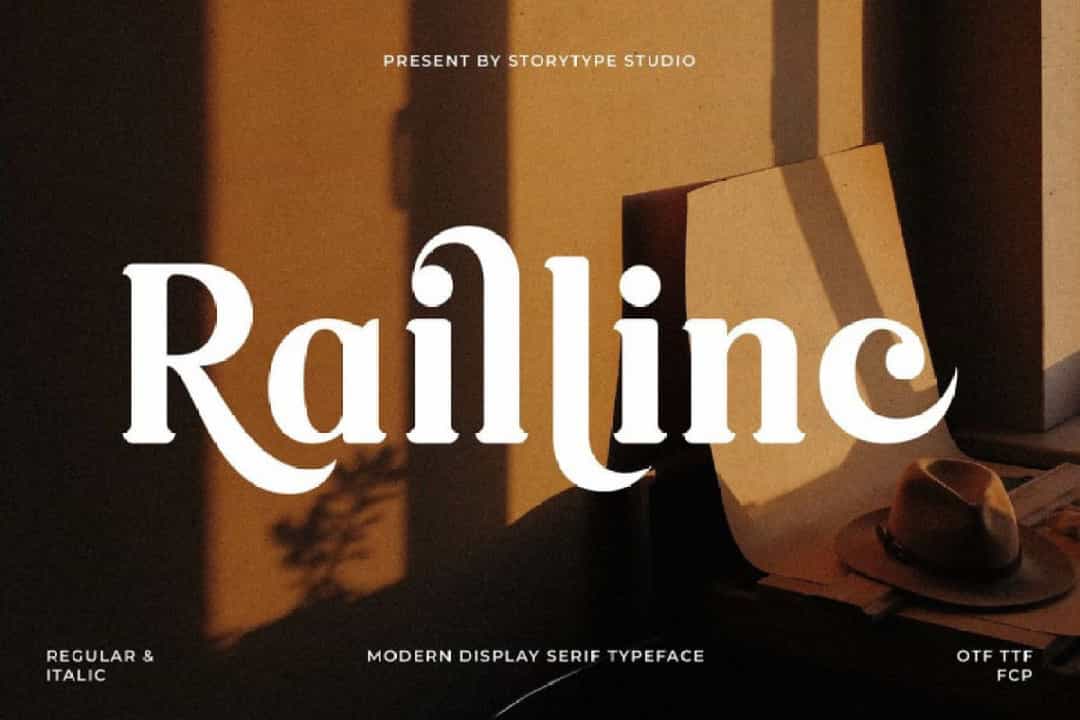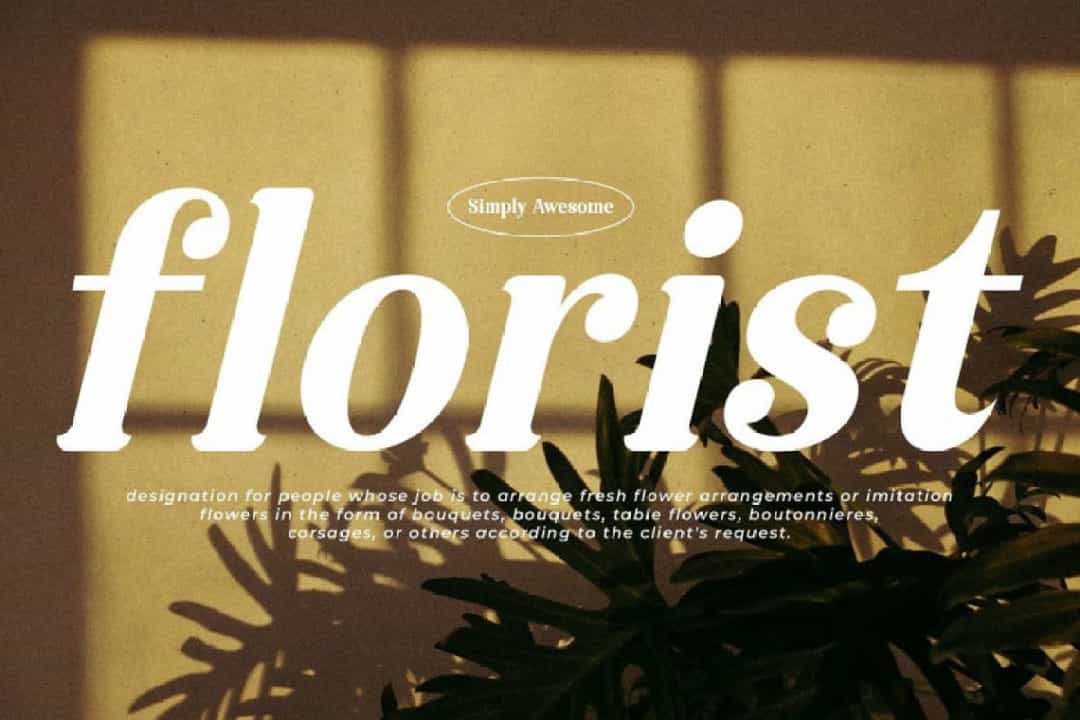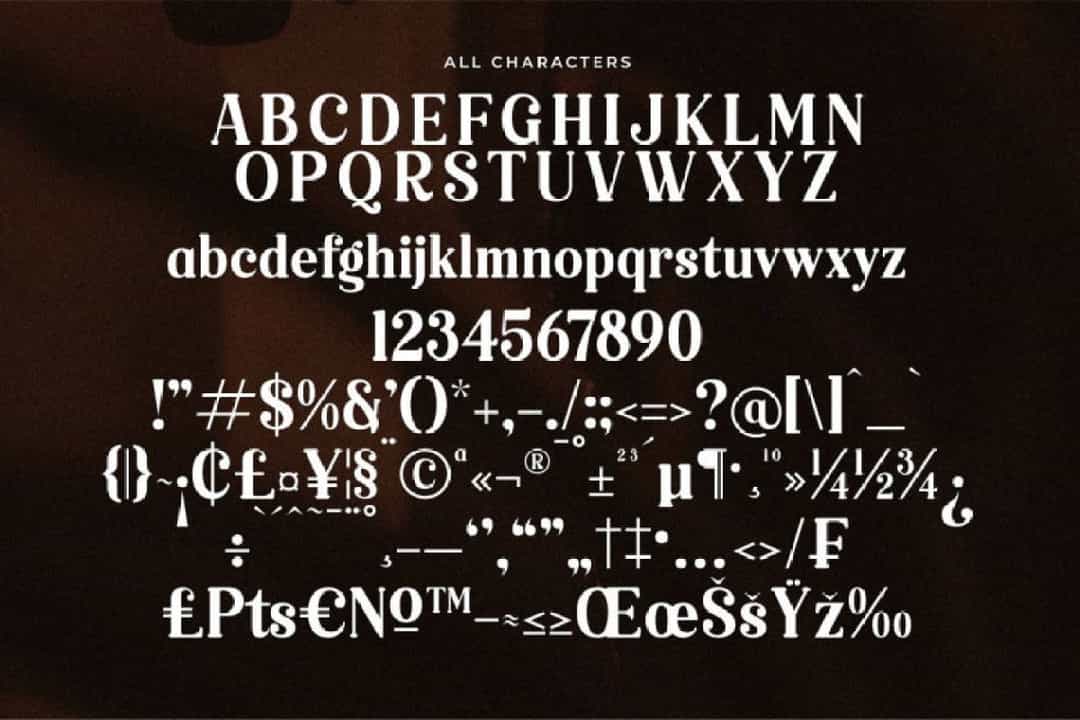
Raillinc is a modern yet classic display serif font, known for its stylish and distinctive character. Perfect for logos, book or film titles, clothing labels, magazines and lettering projects as well as quotes – this versatile typeface can also make an excellent statement of luxury and sophistication in many other contexts.